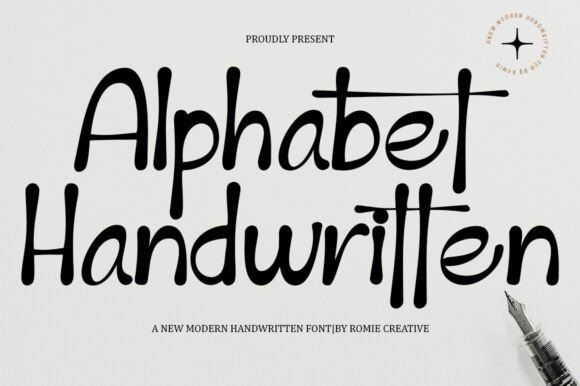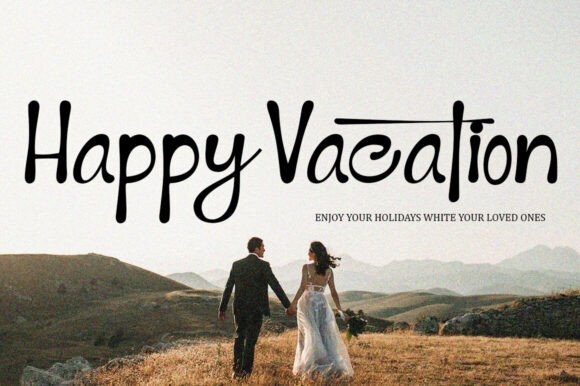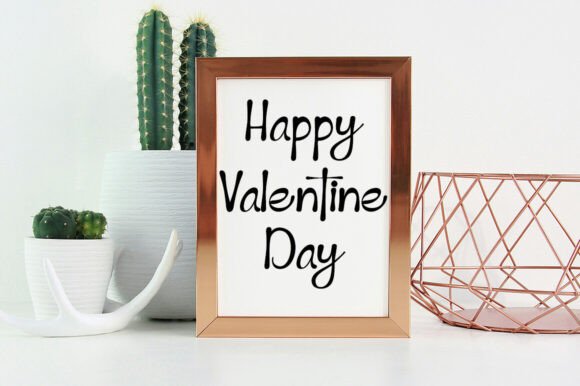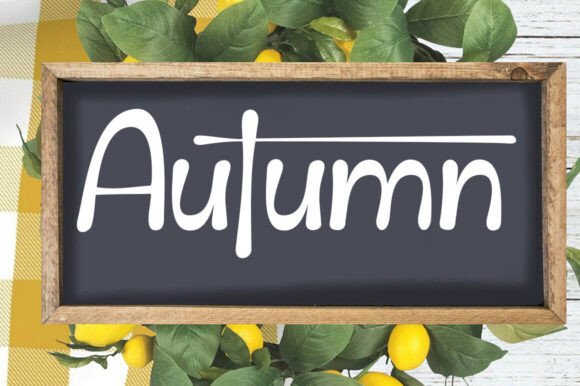
Alphabet Handwritten Font
About the Alphabet Handwritten Font
From logos to headlines, the Alphabet Handwritten Font is the perfect choice for making a lasting impression. Alphabet Handwritten is a modern handwritten font. It’s perfect for branding, wedding invitations, photography, Neon Sign, bloggers, logos, greeting cards, logo, quotes and more.
Its casual, slightly informal style makes it ideal for projects needing a friendly and approachable feel. Consider it for headlines, short body text in marketing materials, social media graphics, and packaging for artisanal products. Avoid using it for lengthy text blocks or UI elements where legibility is paramount.
Alphabet Handwritten pairs well with clean sans-serif fonts like Montserrat or Open Sans for a balanced contrast, or a more geometric sans-serif such as Futura for a modern feel. For a touch of elegance, consider pairing it with a delicate serif like Playfair Display.
The overall personality is warm and inviting, yet contemporary. It’s best suited for brands that wish to convey a sense of handcrafted quality and personal connection.
Alphabet Handwritten Font Usage Examples
Alphabet Handwritten Font Example